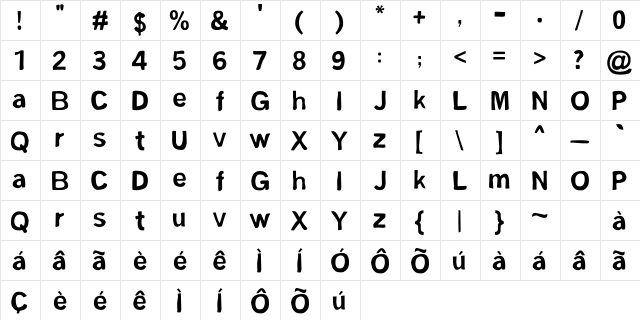
fsm_sans fsm Font Preview
fsm_sans fsm
fsm_sans fsm Font Details
| Style | fsm |
| Designer | Marcelo Sodr |
Design Context for fsm_sans Typeface
fsm_sans takes a measured approach to typography — its balanced proportions and neutral character make it a reliable workhorse for both digital and print work.